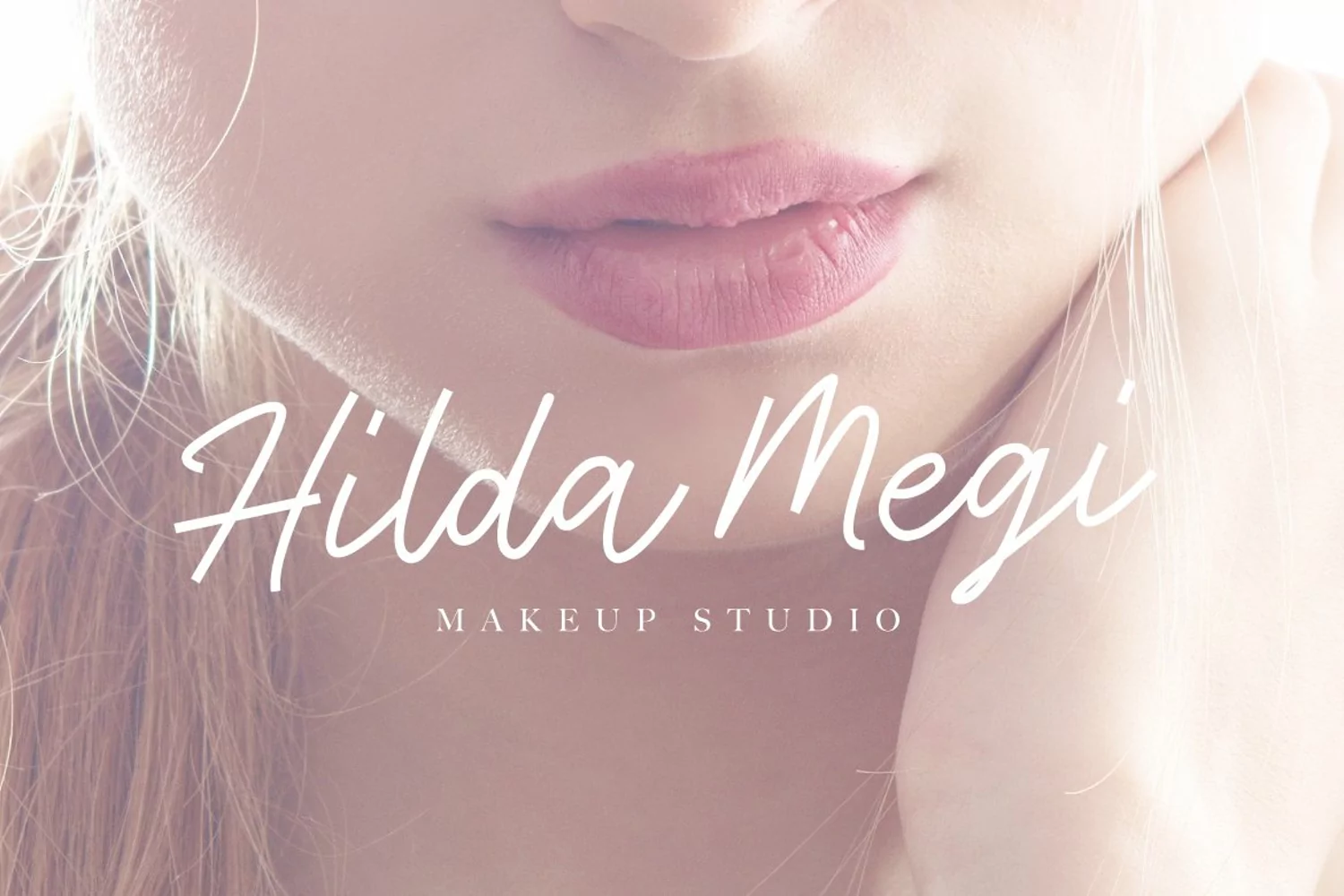
Antique is a Classy Monoline font. It suitable for company logo, personal brand, t-shirt, quote poster, packaging, book cover, display design, cards, and any monoline calligraphy needs and more.